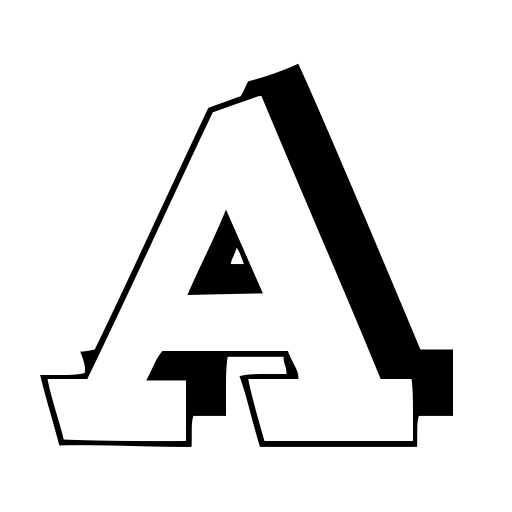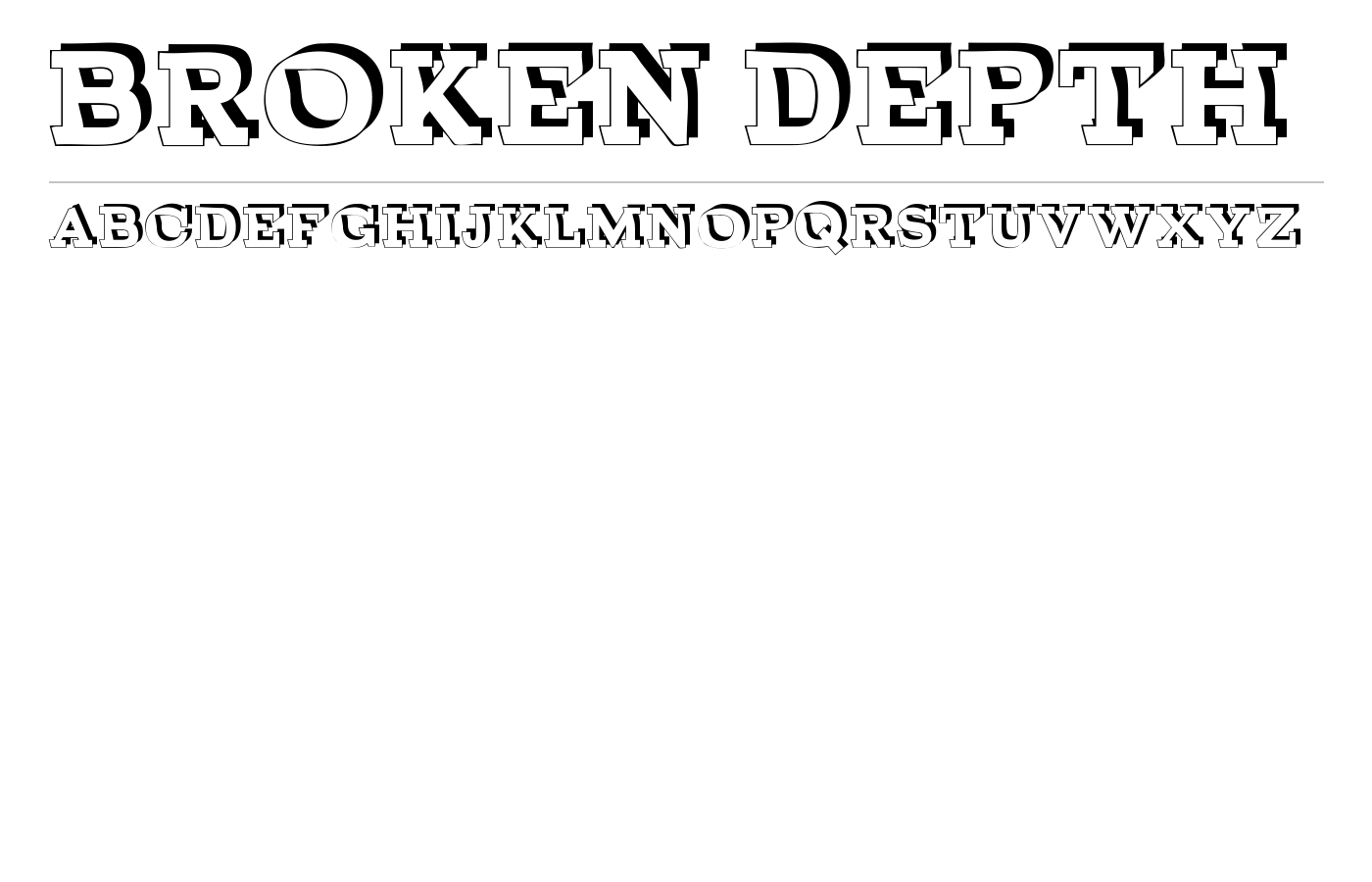
BROKEN normal demo is a bold slab serif font with a strong, vintage-inspired personality characterized by its thick, blocky serifs and three-dimensional shadow effect that adds depth and visual interest. Its uppercase-only design with large x-height and sturdy letterforms makes it perfect for commanding attention in headlines, logos, and poster design, delivering a playful yet confident tone ideal for branding that seeks a bold and classic aesthetic.
BROKEN normal demo Font
About BROKEN normal demo Font